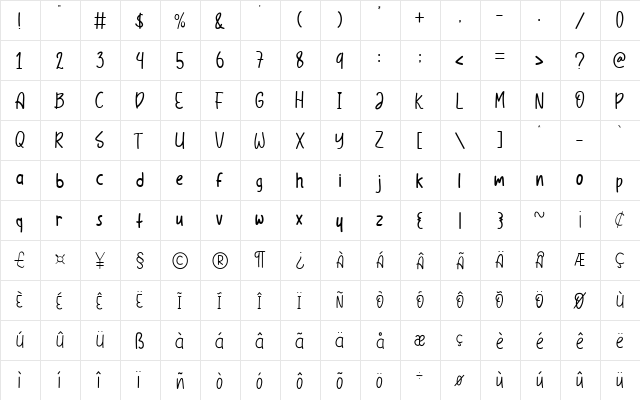
Coffee Break Regular Font Preview
Coffee Break Regular
Coffee Break Regular Font Details
Design Context for Coffee Break Typeface
Coffee Break takes a measured approach to typography — its balanced proportions and neutral character make it a reliable workhorse for both digital and print work.